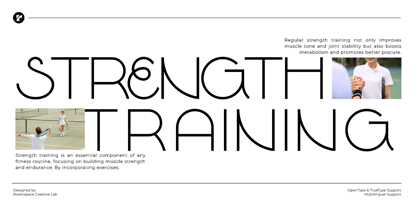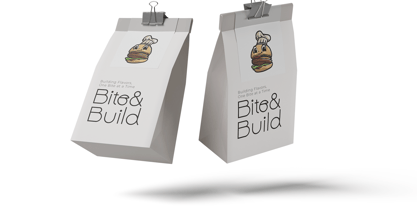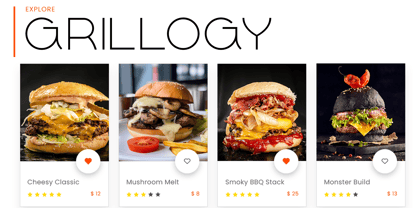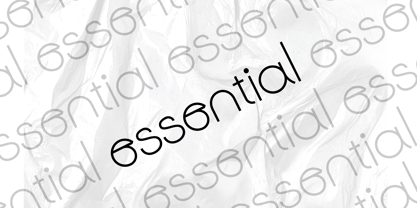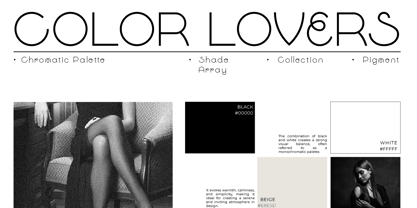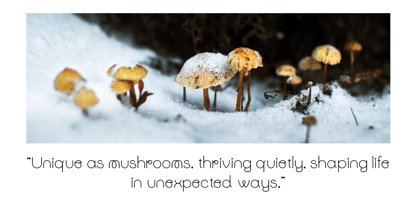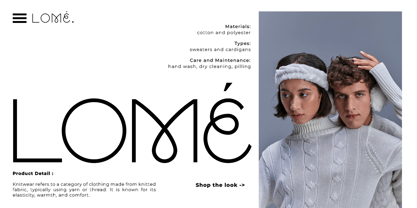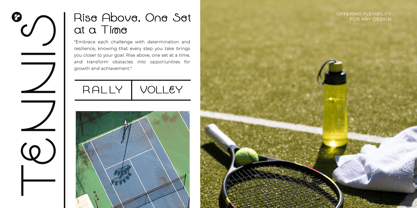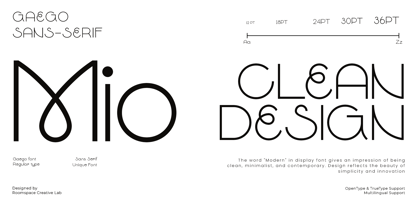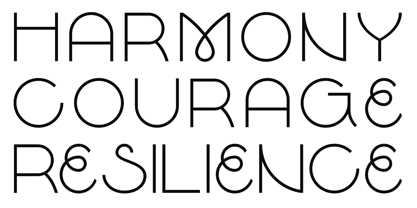
Gaego
by Jafar07
The Gaego Font Family was designed by Bakhrudin Ja'far and published by Jafar07. Gaego contains 3 styles and family package options. More about this family
Gaego is a modern geometric sans-serif font designed to balance aesthetics and functionality. Its clean, circular forms and minimalist structure create a sleek, futuristic feel while maintaining excellent readability. Perfect for designers who appreciate precision and simplicity, Gaego gives your project a polished and professional look. Built with geometric harmony in mind, each letter in Gaego has been crafted with consistent proportions and refined spacing. The font’s versatility allows it to shine in both small and large text, making it ideal for logos, web interfaces, editorial layouts, and digital displays. Every curve and line is carefully optimized to deliver visual balance and smooth flow. Whether you’re working on branding, tech startups, creative presentations, or modern advertising, Gaego will add a distinctive and contemporary personality to your design. Its timeless simplicity makes it the perfect choice for projects that aim to stand out through clarity and elegance.
A little from my personal design & background: My name is Bakhrudin Ja'far, I live in Malang, Indonesia. I am currently completing my degree in visual communication design and I have worked as a lettering artist and logo designer for many years. I finally started my studio called roocspace creative lab (jafar07) Studio a few months ago and with my team made my letters into typography.